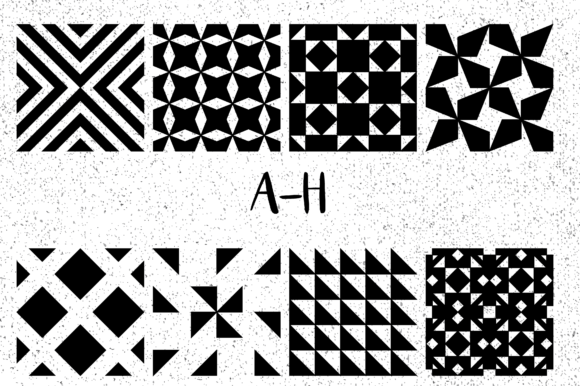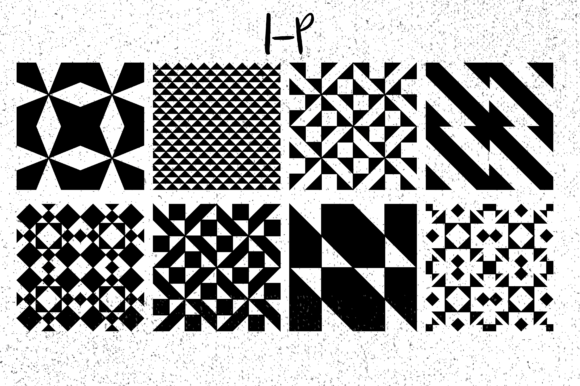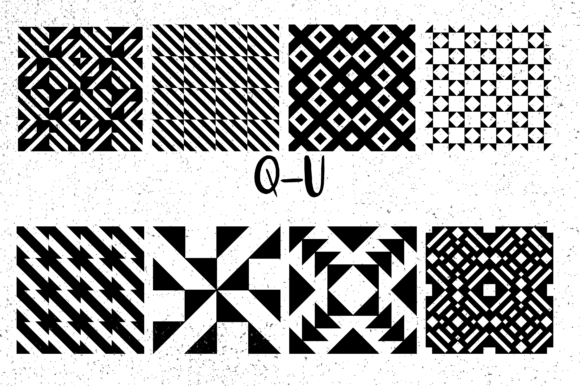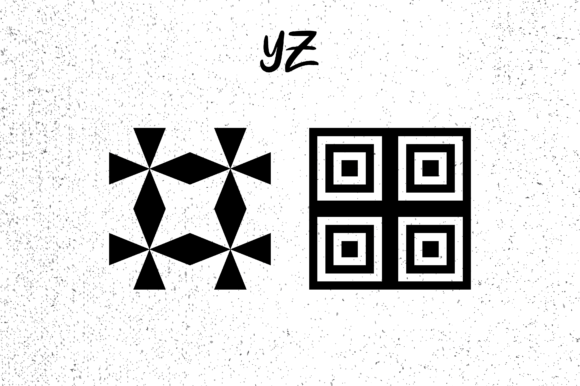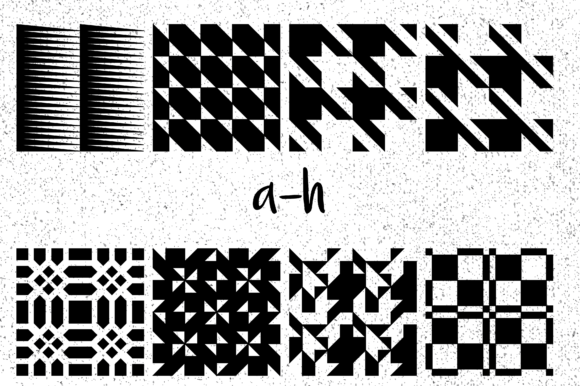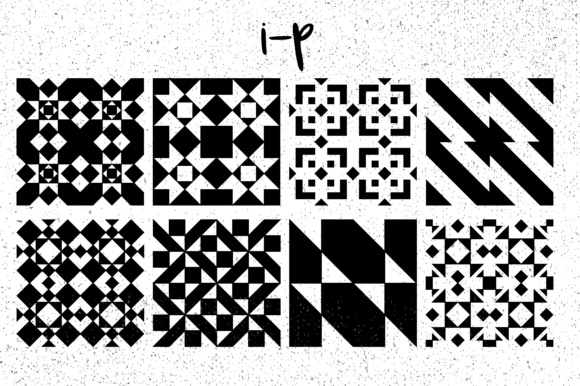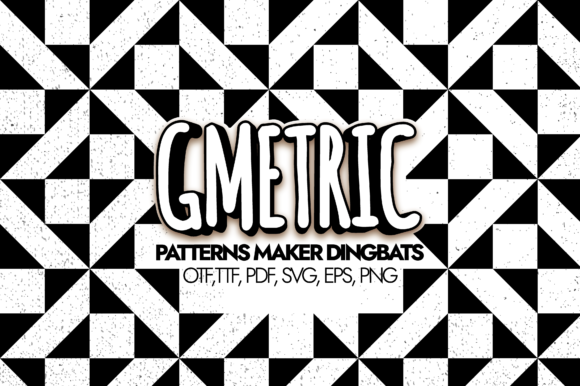
Gmetric Font: Revolutionizing Pattern Creation for Designers and Crafters
In the world of design and crafting, creating visually appealing patterns can be a tedious and time-consuming task. However, with the introduction of Gmetric Font, a dingbat geometric pattern creator, designers and crafters can now breathe a sigh of relief. Gmetric is designed to make your pattern creation process easy and effortless, allowing you to focus on the creative aspects of your work.
What is Gmetric Font?
Gmetric Font is a unique dingbat font that enables users to create geometric patterns with ease. Unlike traditional font styles, Gmetric doesn’t require you to use a mouse or a graphics tablet to create patterns. Instead, all you need to do is type any letter or number repeatedly without spaces, and Gmetric will transform your text into a beautiful geometric pattern.
How Does Gmetric Work?
Using Gmetric Font is incredibly simple. Here’s how it works:
- Choose a letter or number: Select any letter or number on your keyboard.
- Type repeatedly: Type the chosen letter or number repeatedly without spaces.
- Create a pattern: Gmetric will automatically transform your text into a geometric pattern.
The resulting pattern can be customized to fit your design needs, allowing you to experiment with different shapes, sizes, and colors.
Benefits of Using Gmetric Font
Gmetric Font offers numerous benefits for designers and crafters, including:
- Time-saving: Gmetric saves you time and effort by automating the pattern creation process.
- Ease of use: The font is incredibly easy to use, even for those with limited design experience.
- Customization: Gmetric allows you to experiment with different patterns, shapes, and sizes.
- Versatility: The font can be used for a wide range of design projects, from graphic design to crafting.
Applications of Gmetric Font
Gmetric Font has a wide range of applications across various industries, including:
- Graphic Design: Use Gmetric to create visually appealing patterns for brochures, posters, and business cards.
- Crafting: Gmetric is perfect for crafters who want to create intricate patterns for their projects, such as quilting, knitting, or scrapbooking.
- Textile Design: Designers can use Gmetric to create unique patterns for fabrics, wallpaper, and other textile products.
Tips and Tricks for Getting the Most Out of Gmetric Font
To get the most out of Gmetric Font, here are some tips and tricks:
- Experiment with different letters and numbers: Try using different letters and numbers to create unique patterns.
- Adjust font size and style: Experiment with different font sizes and styles to achieve the desired effect.
- Combine with other design elements: Combine Gmetric patterns with other design elements, such as images or textures, to create visually appealing designs.
Gmetric Font is a game-changer for designers and crafters who want to create geometric patterns with ease. With its simple and intuitive interface, Gmetric makes it easy to create visually appealing patterns in no time. Whether you’re a seasoned designer or a beginner crafter, Gmetric Font is an essential tool to have in your design arsenal.